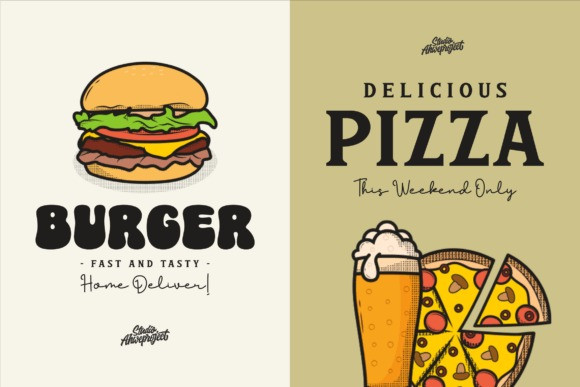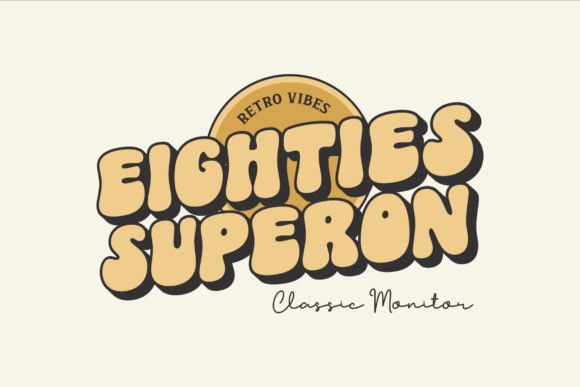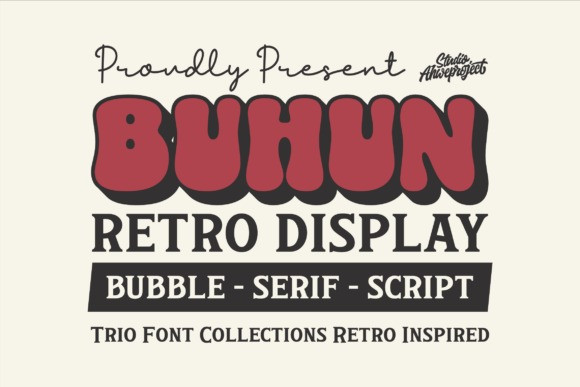
Buhun Retro Font Trio
Buhun Retro Font Trio a retro-inspired trio collection that brings vintage cool to the modern age.This Buhun typeface captures the funky, groovy energy of the 70s with its thick, pillowy “bubble” letterforms and classic drop shadows. Whether you are designing for a retro-themed café, streetwear apparel, or a music festival poster, the Buhun font provides an instant blast of nostalgia and style.
The Buhun typeface is incredibly versatile, often coming as part of a set that includes bubble, serif, and script variants to help you build a cohesive visual identity. Use the bubble version for high-impact headlines and the script version for subheadings to create a dynamic, layered look. Pair it with warm, “sunset” color palettes (oranges, creams, and browns) to maximize its vintage appeal. It’s the perfect choice for brands that want to feel timeless yet incredibly trendy.